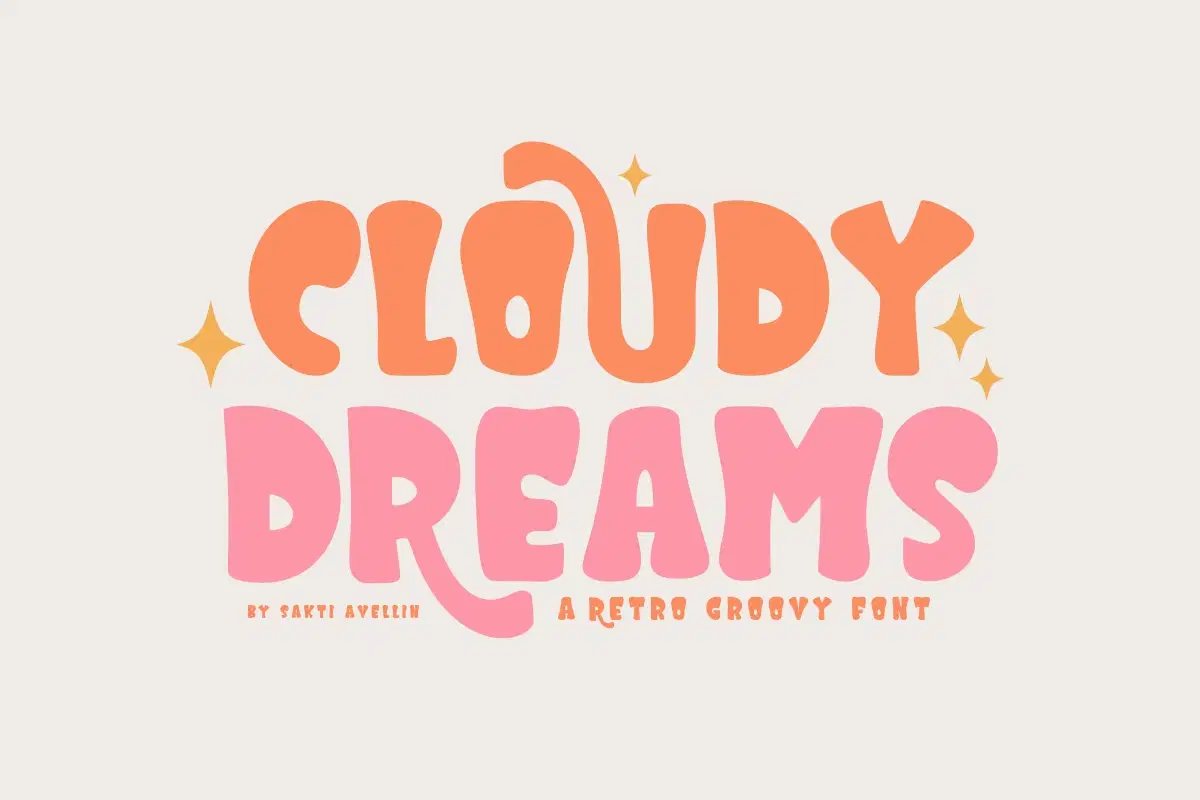
Cloudy Dreams is a dreamy, playful, and incredibly retro groovy font that brings a nostalgic 1970s vibe to your creative projects. This chunky display font features soft, wavy curves and a bold, psychedelic rhythm, making it essential for summer branding, funky t-shirt designs, retro posters, and vibrant social media graphics. Its high-impact, thick letterforms ensure it stands out as a powerful display typeface for headlines and product packaging, appealing to a modern audience that loves nostalgic funk, boho style, and cheerful design. Add a touch of magic and nostalgia to your designs with this beautiful and bold groovy font!